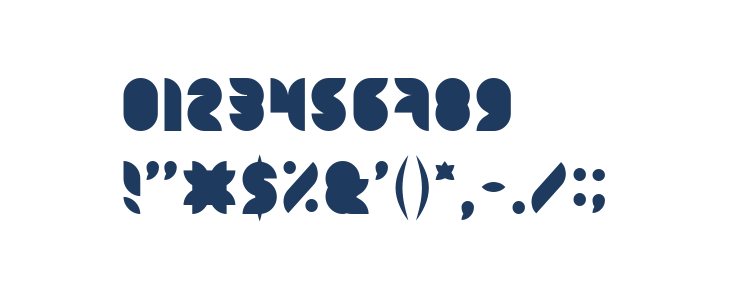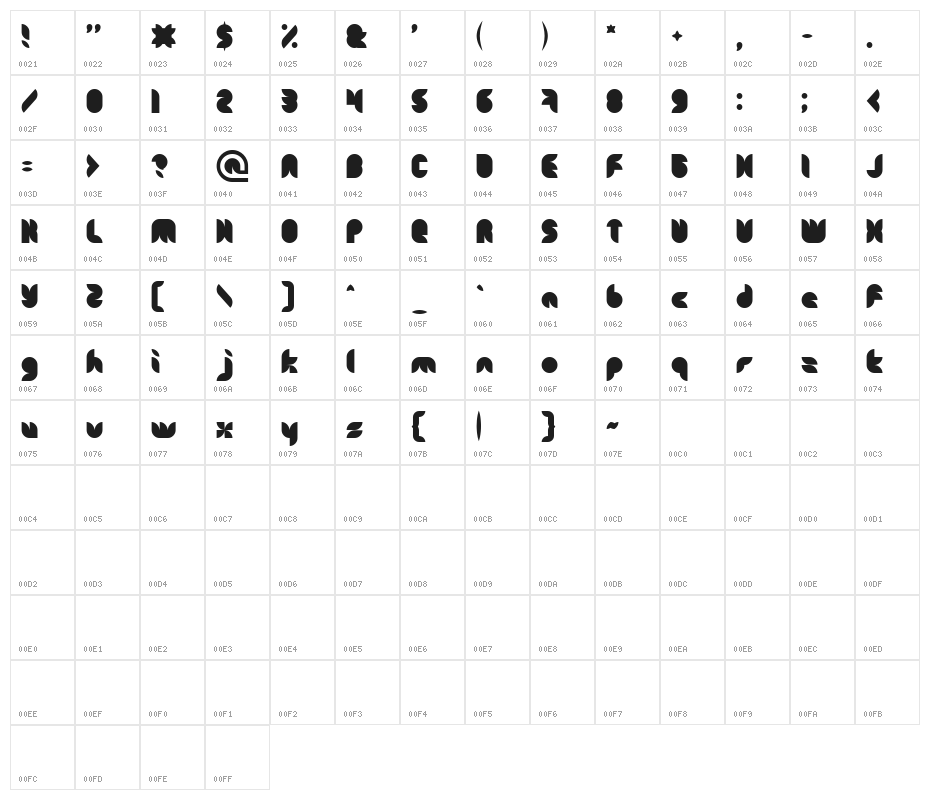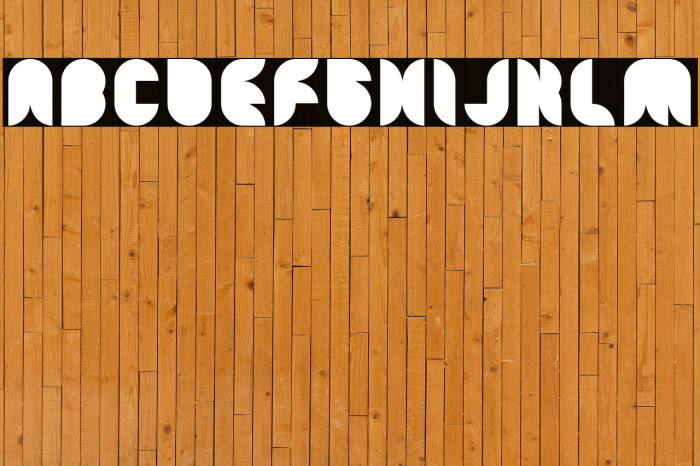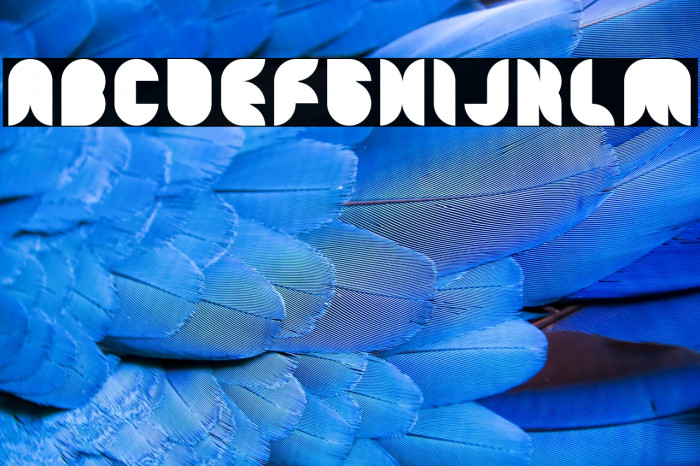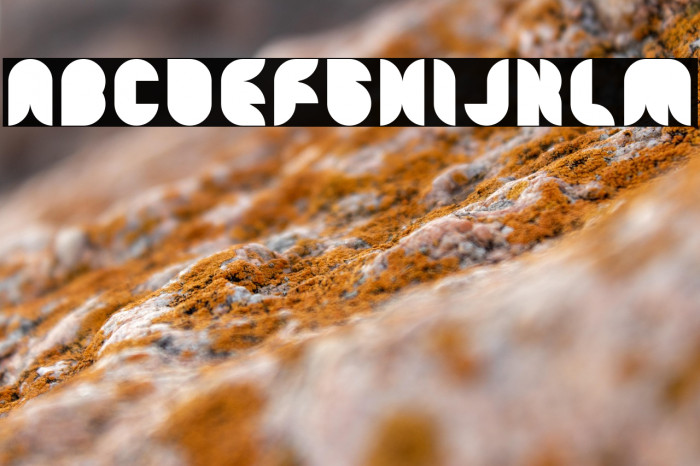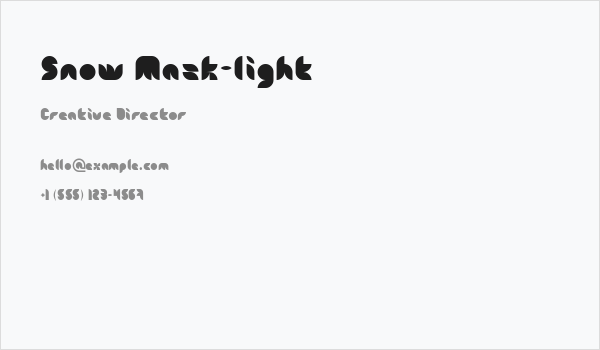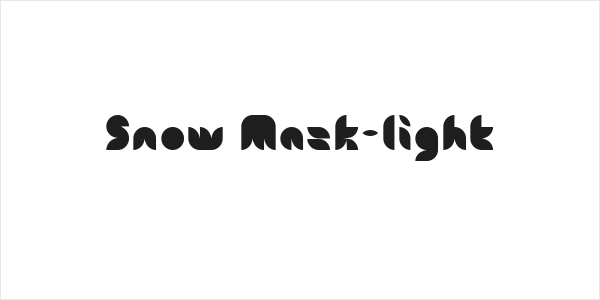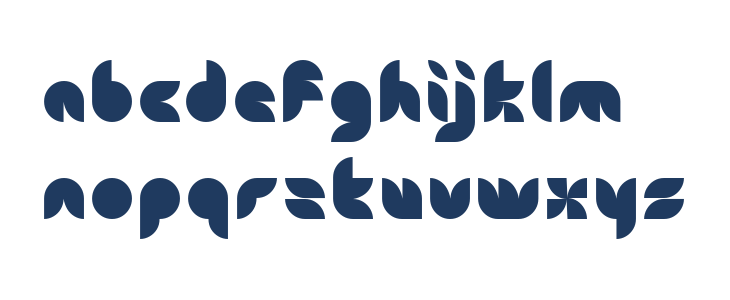
Snow Mask-light Font
Snow Mask-light Description
This font features a bold, geometric design with a playful and modern aesthetic. The characters are crafted with a unique style that incorporates rounded edges and abstract shapes, creating a visually striking appearance. The uppercase and lowercase letters maintain a consistent design language, while the numerals and special characters complement the overall look. The font's distinctiveness lies in its ability to convey a sense of creativity and innovation, making it ideal for projects that require a standout visual identity.
| Use Case | Logos, Headlines, Posters |
| Proposed Projects | Ideal for branding, posters, album covers, and creative advertising campaigns. |